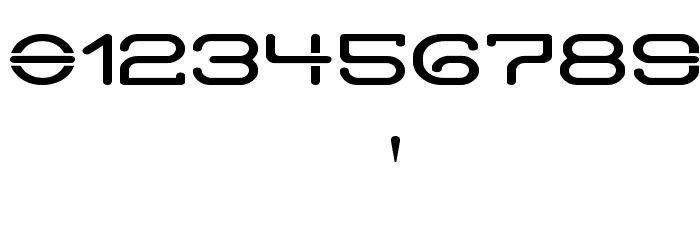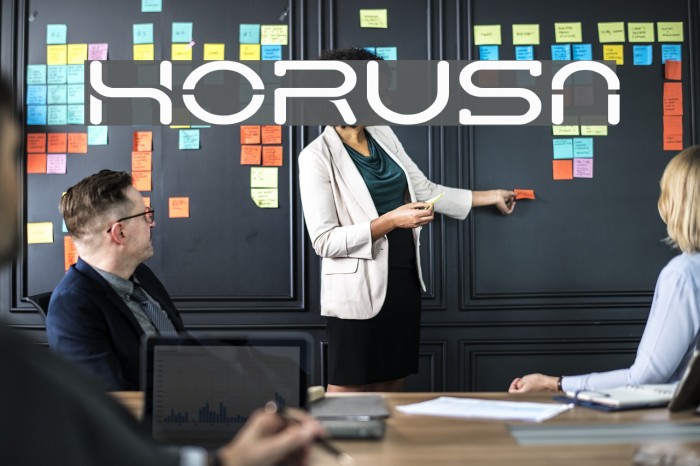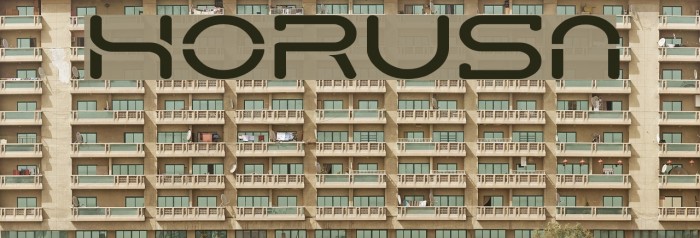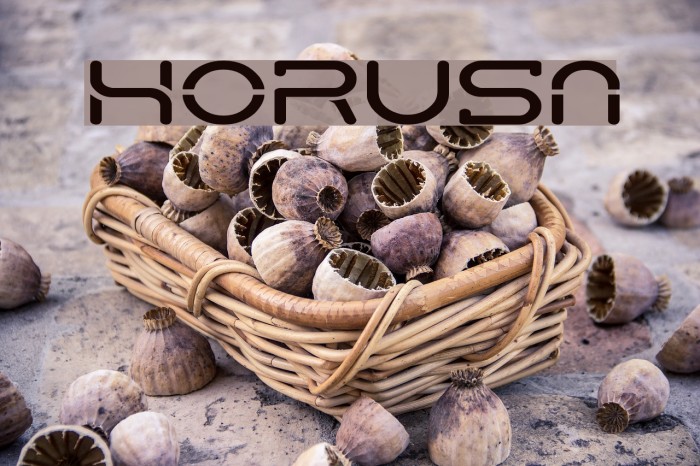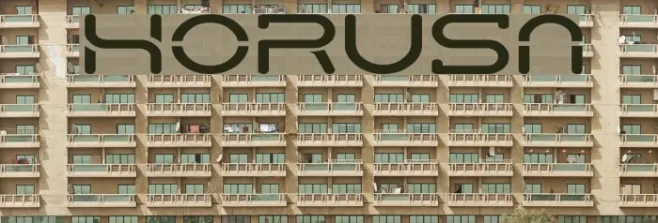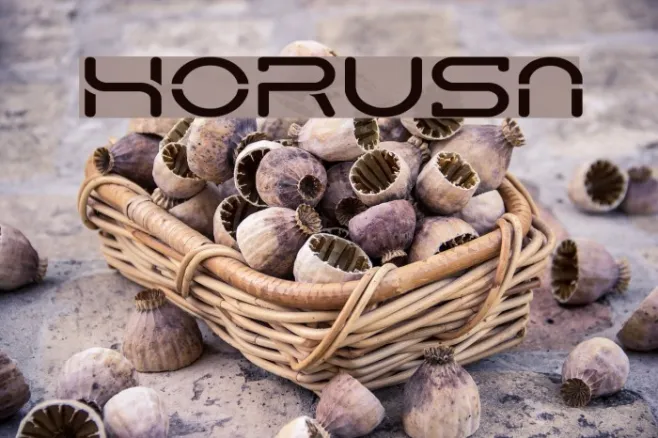
HorusN Font
This font features a futuristic and geometric design, characterized by its rounded edges and segmented lines. The uppercase and lowercase letters maintain a consistent style, with a unique approach to character formation that includes breaks in the strokes, giving it a digital or sci-fi appearance. The numbers and special characters follow the same design principles, ensuring uniformity across all glyphs. This font's distinct style makes it stand out, ideal for projects that require a modern and innovative look.
A futuristic, segmented font with geometric and digital aesthetics.
- Proposed Projects: Ideal for technology branding, sci-fi movie posters, video game titles, and modern digital interfaces.